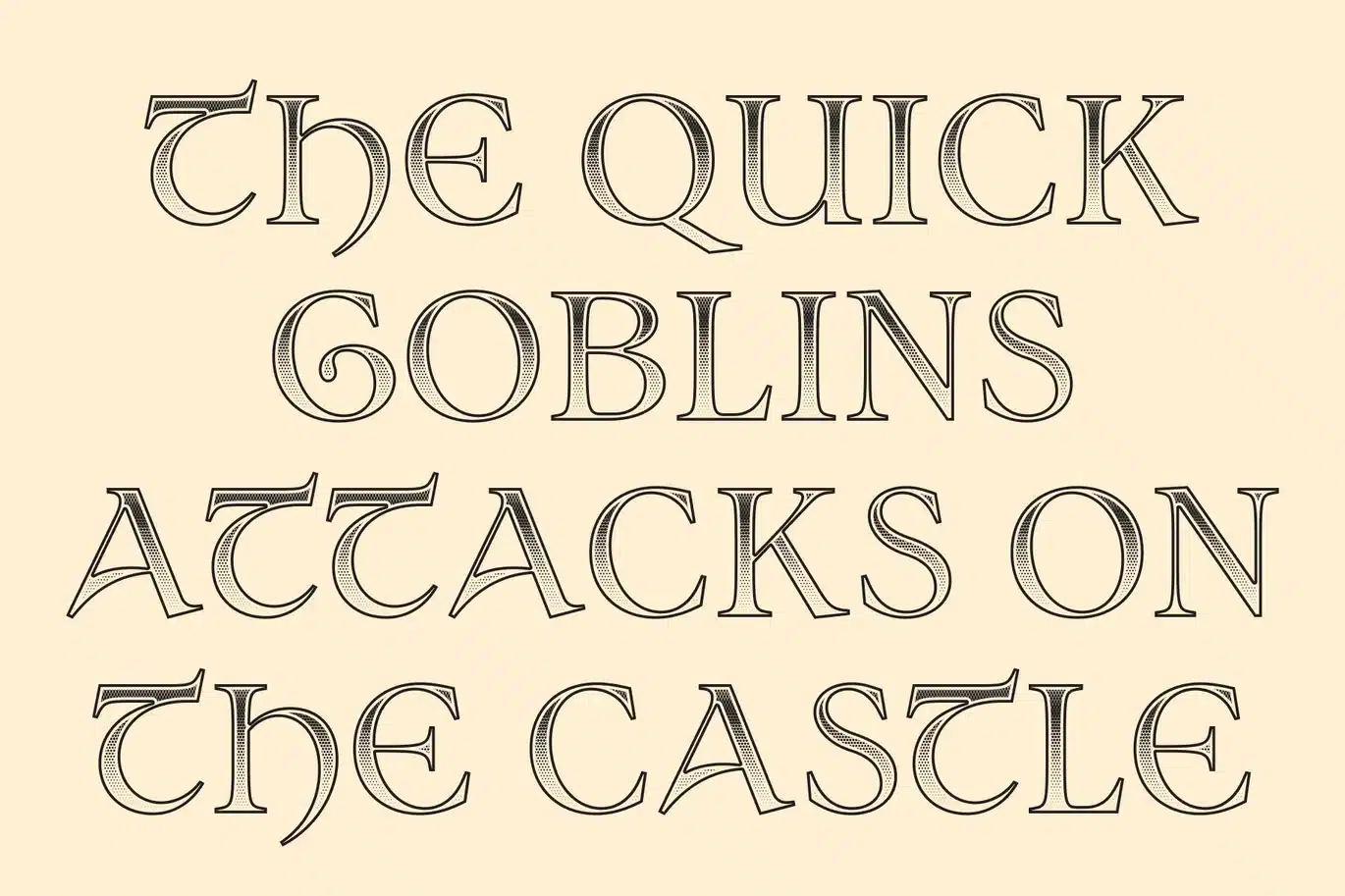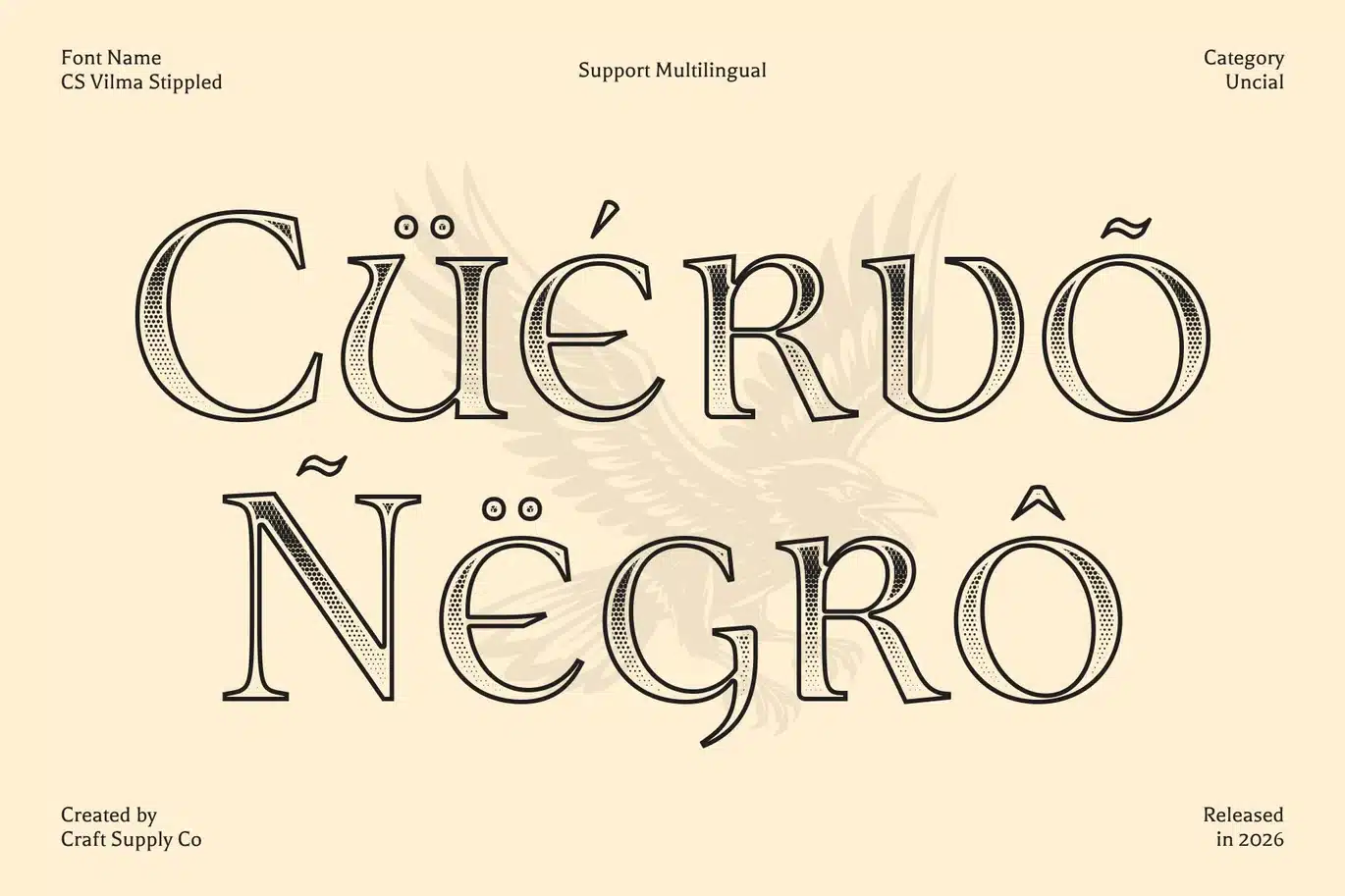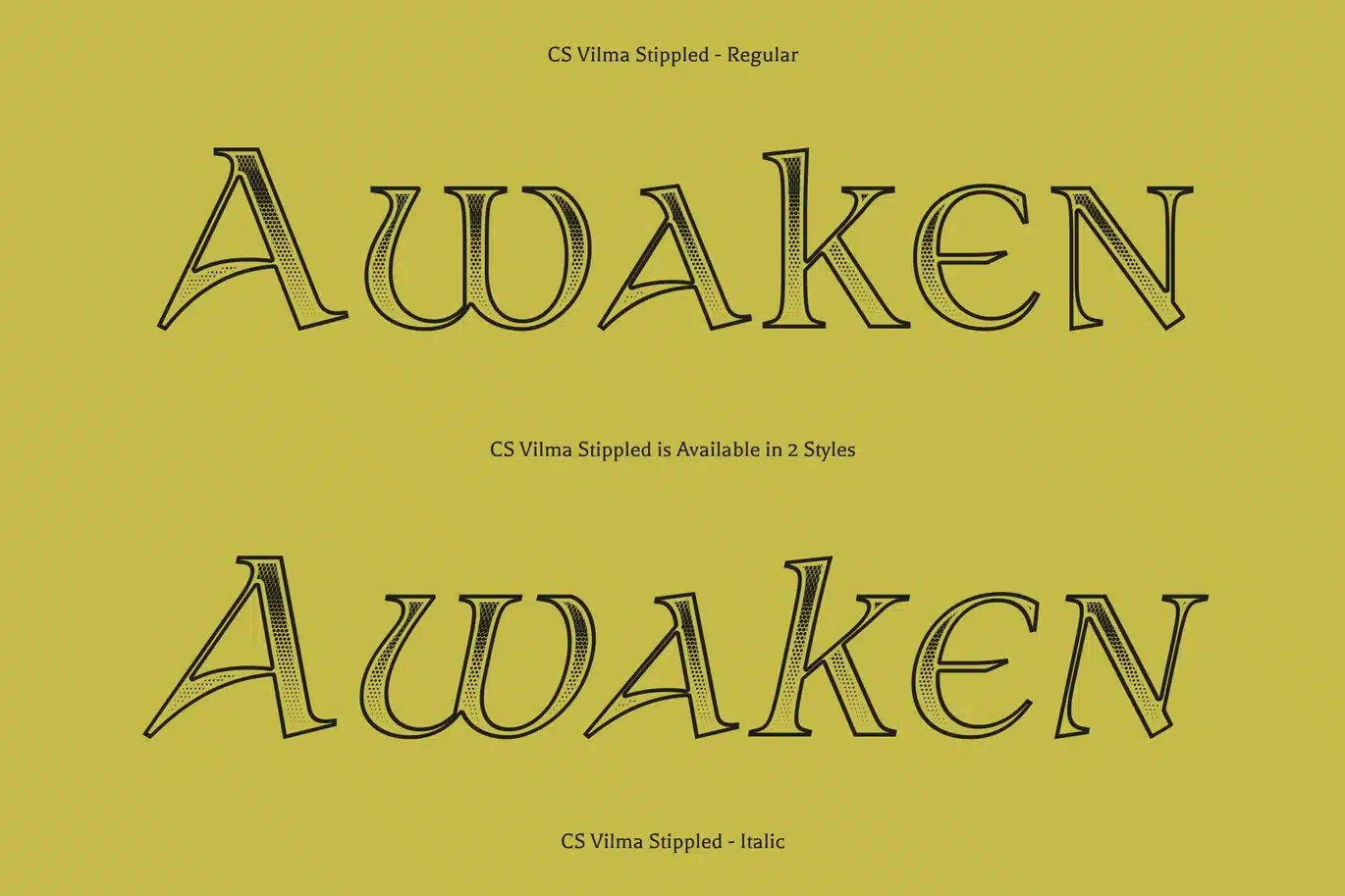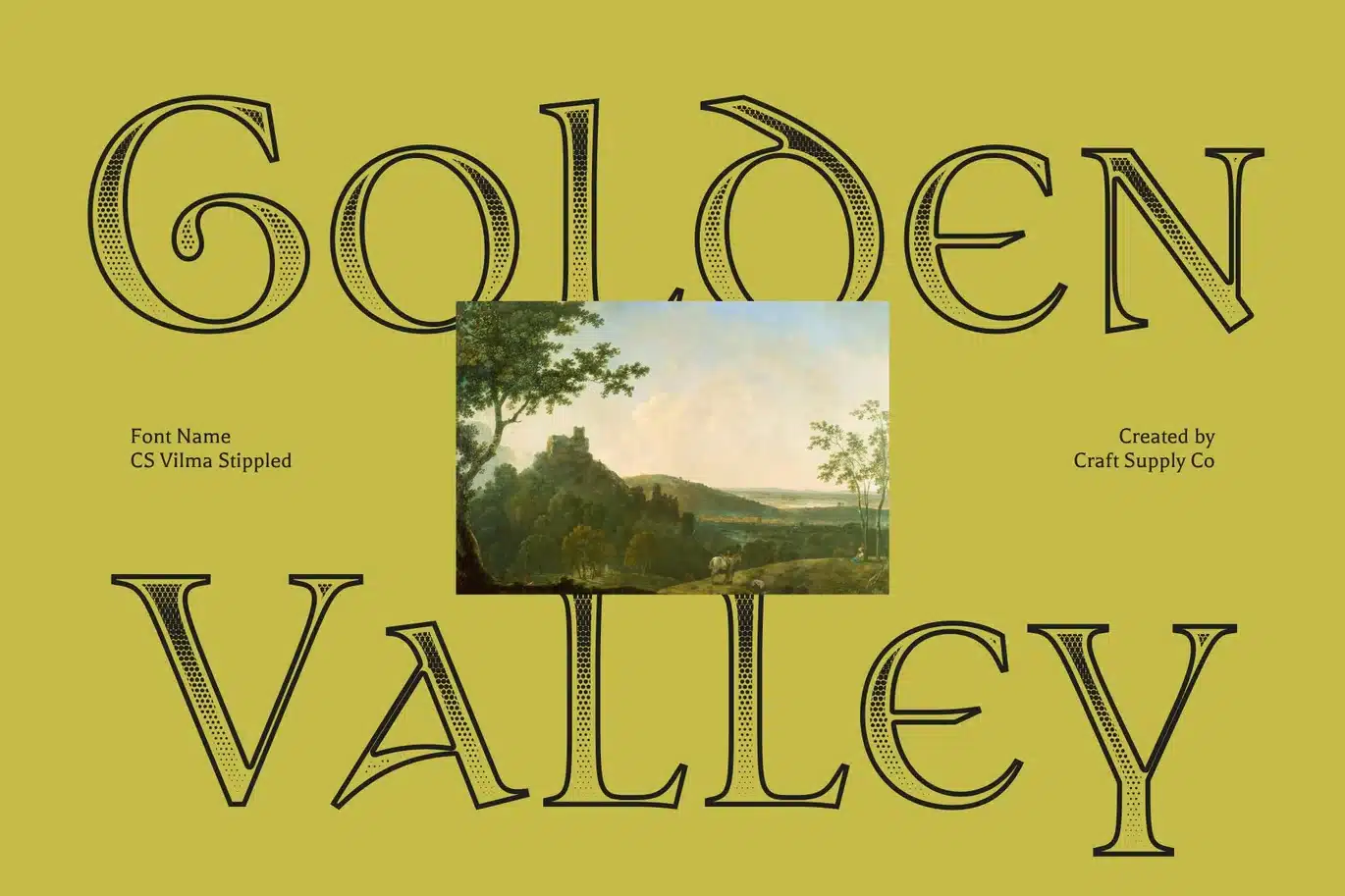
Vilma Stippled Font
CS Vilma Stippled – Uncial Font with Elegant Historical Texture
Classic Uncial Style with Stippled Depth
This is a classic uncial serif display font inspired by the refined handwriting of the medieval era. Its smooth curves, balanced proportions, and graceful structure echo the artistry of ancient manuscripts. Enhanced with a stippled texture, the font gains a subtle dotted surface that adds visual depth and a handcrafted engraved quality, strengthening its historical charm and timeless elegance.
Artistic Letterforms with Decorative Detail
The letterforms of this font feature gentle curves and refined ornamental touches that highlight the beauty of uncial typography. These elements create a harmonious balance between elegance and clarity. The stippled effect enriches the characters with delicate texture, giving the typography a layered and artistic appearance while preserving its graceful flow.
Beauty, Nostalgia, and Historic Character
Rooted in traditional calligraphy, this font conveys a sense of beauty and nostalgia. Its elegant structure and textured finish evoke the atmosphere of historical manuscripts, allowing designs to feel authentic, refined, and deeply connected to heritage.
Perfect for Sophisticated and Timeless Designs
This is ideal for wedding invitations, book covers, literary publications, heritage branding, and elegant stationery. By combining classic uncial forms with a subtle stippled finish, the font delivers a timeless typographic presence that enhances designs with grace, tradition, and artistic sophistication.